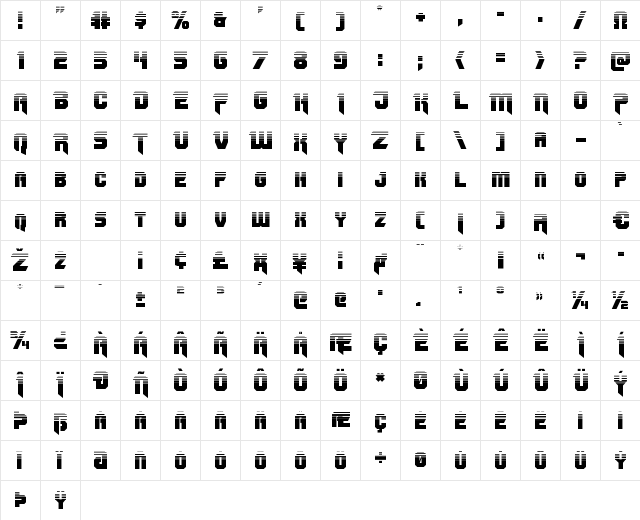
OmegaForce Twotone Regular
Design Context for OmegaForce Twotone Typeface
OmegaForce Twotone brings high-energy athletic personality to the page — its confident, muscular forms are built for impact.
Built for sports team identities, athletic apparel, event posters, and high-energy promotional material.
Font Pairing: Use alongside a condensed or geometric sans for supporting copy — keep the pairing bold, functional, and free of ornament.
Pro Tip: OmegaForce Twotone thrives on contrast — try it large, bold, and tight against a clean background for maximum visual impact.